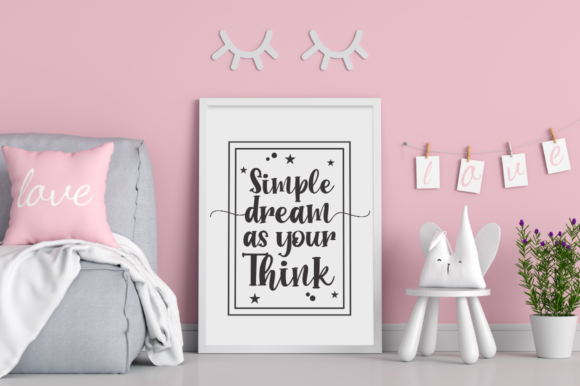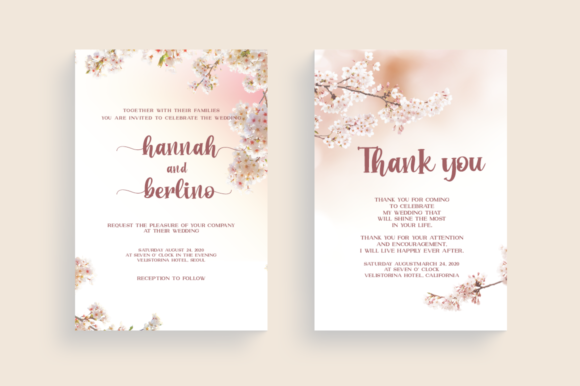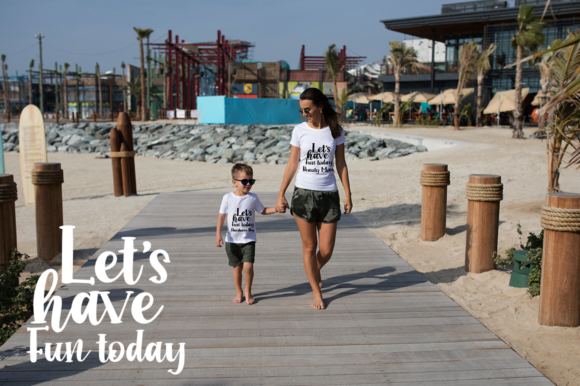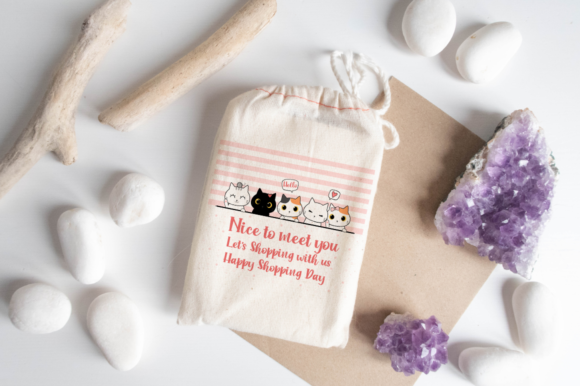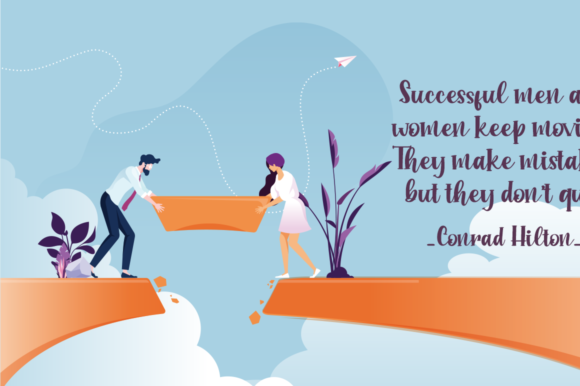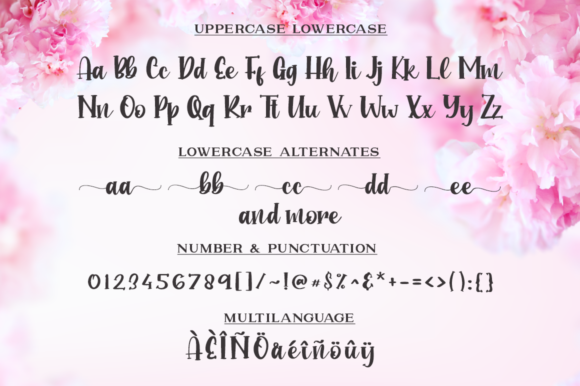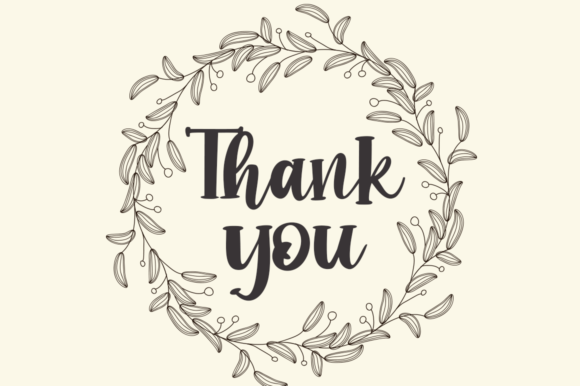
Into Paradise Font
About Into Paradise Font
Into Paradise feels equally charming and elegant. It looks stunning on wedding invitations, thank you cards, quotes, greeting cards, logos, business cards and every other design which needs a handwritten touch.